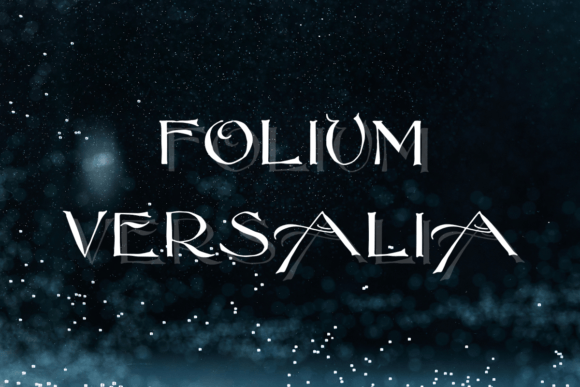
Prepare yourself for a journey through time with Folium Versalia, a font that echoes the grandeur of medieval manuscripts and the intricate charm of Celtic artistry. Immerse yourself in a captivating narrative where letters dance like sprites on a moonlit night, transforming your designs into enchanting tales.
Folium Versalia is not just a font; it's a portal to a world of wonder, where words take on a magical aura. Whether you're crafting a storybook, a historical narrative, or any project that yearns for a touch of ancient grace, Folium Versalia is your muse.
Visualize the awe-inspiring beauty of Folium Versalia gracing your projects. Its delicate strokes, reminiscent of the finest quill penmanship, will transport your readers to a realm of knights and dragons, of love and valor. Its intricate details, inspired by Celtic knots and medieval embellishments, will weave a spell of enchantment that will leave your audience breathless.
With Folium Versalia at your fingertips, you'll unlock the power to craft designs that resonate with the timeless essence of history. Its versatility extends beyond storybooks and historical narratives; it's also an exquisite choice for wedding invitations, posters, branding, and any project seeking a touch of sophistication.
Unleash the storyteller within you and let Folium Versalia guide your words into an exquisite tapestry of imagination. Its enchanting aura will captivate your audience, leaving them spellbound by the sheer artistry of your creations. Embrace the magic of Folium Versalia and watch your designs transform into timeless masterpieces.